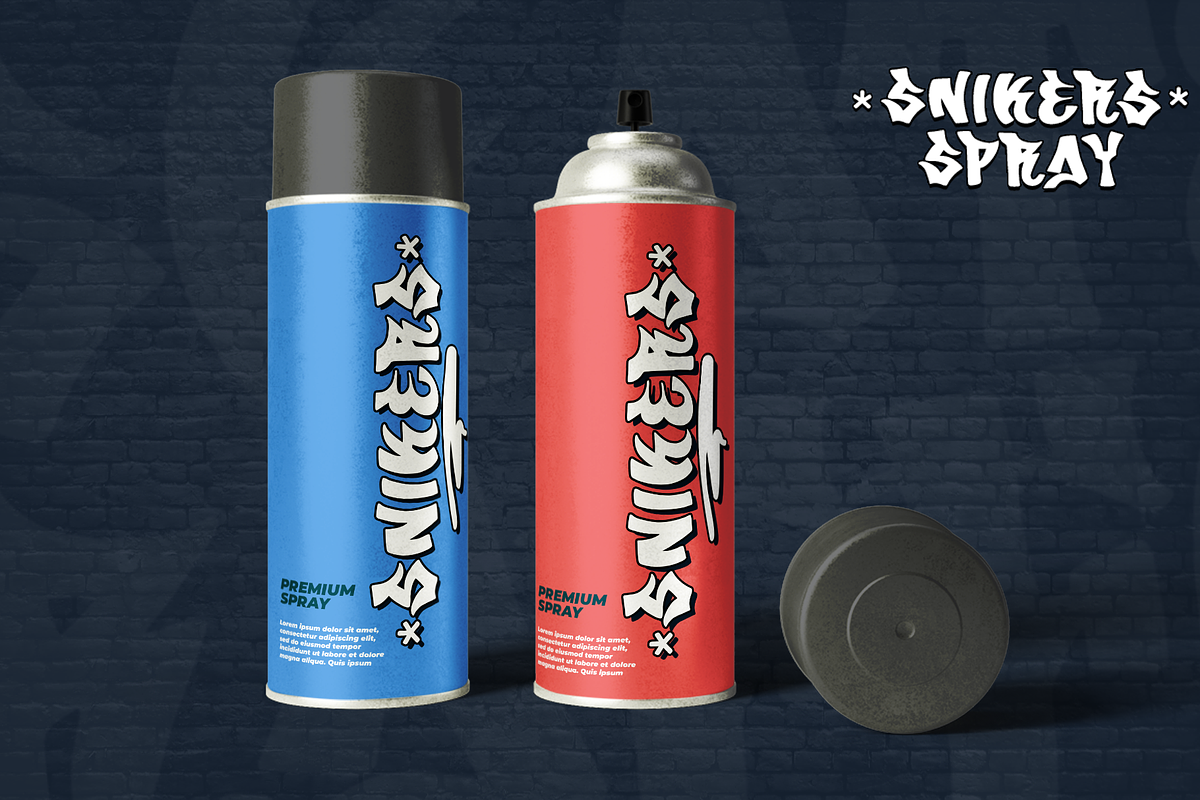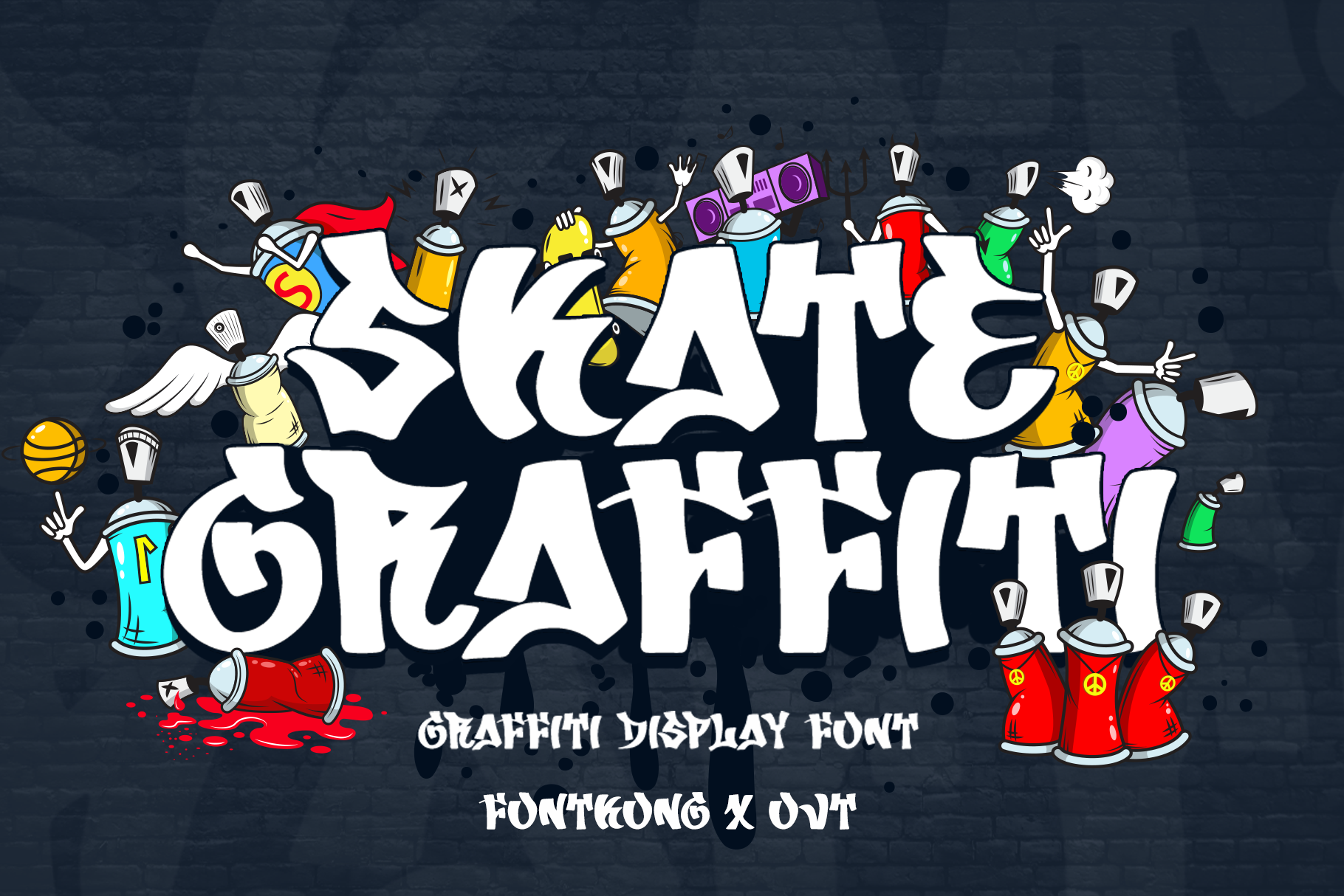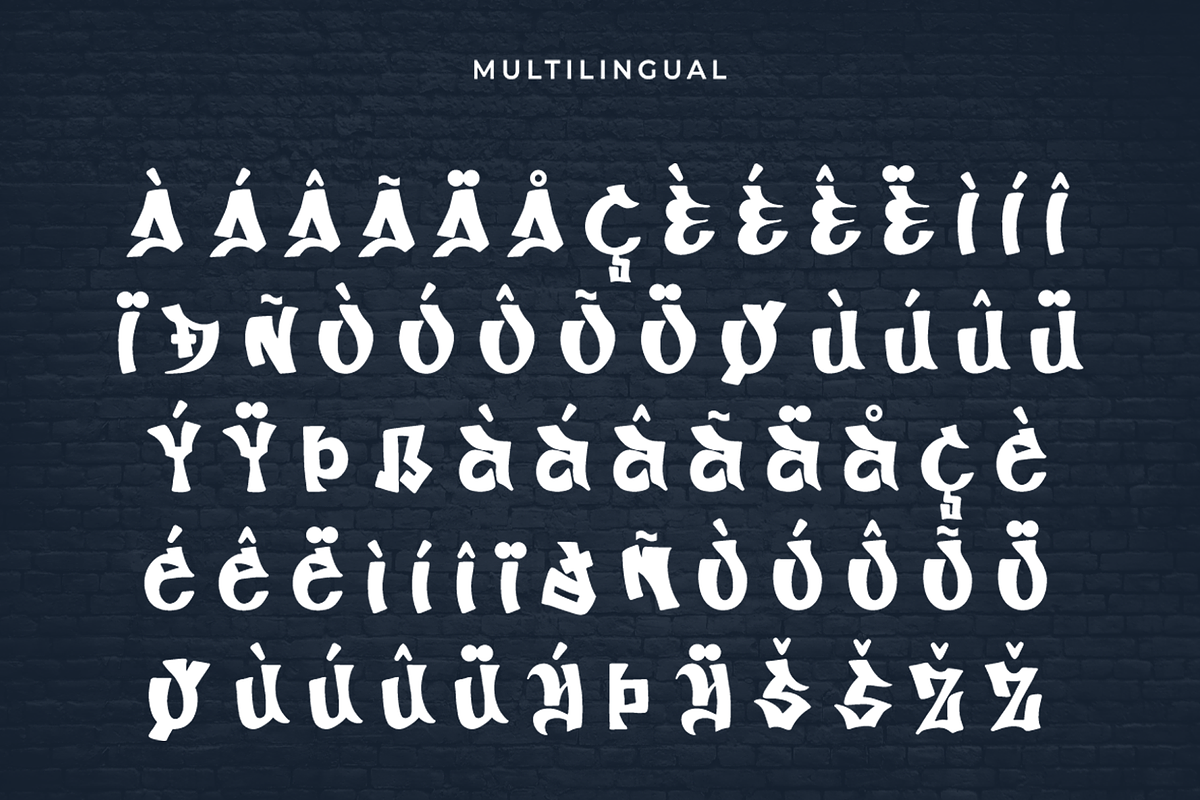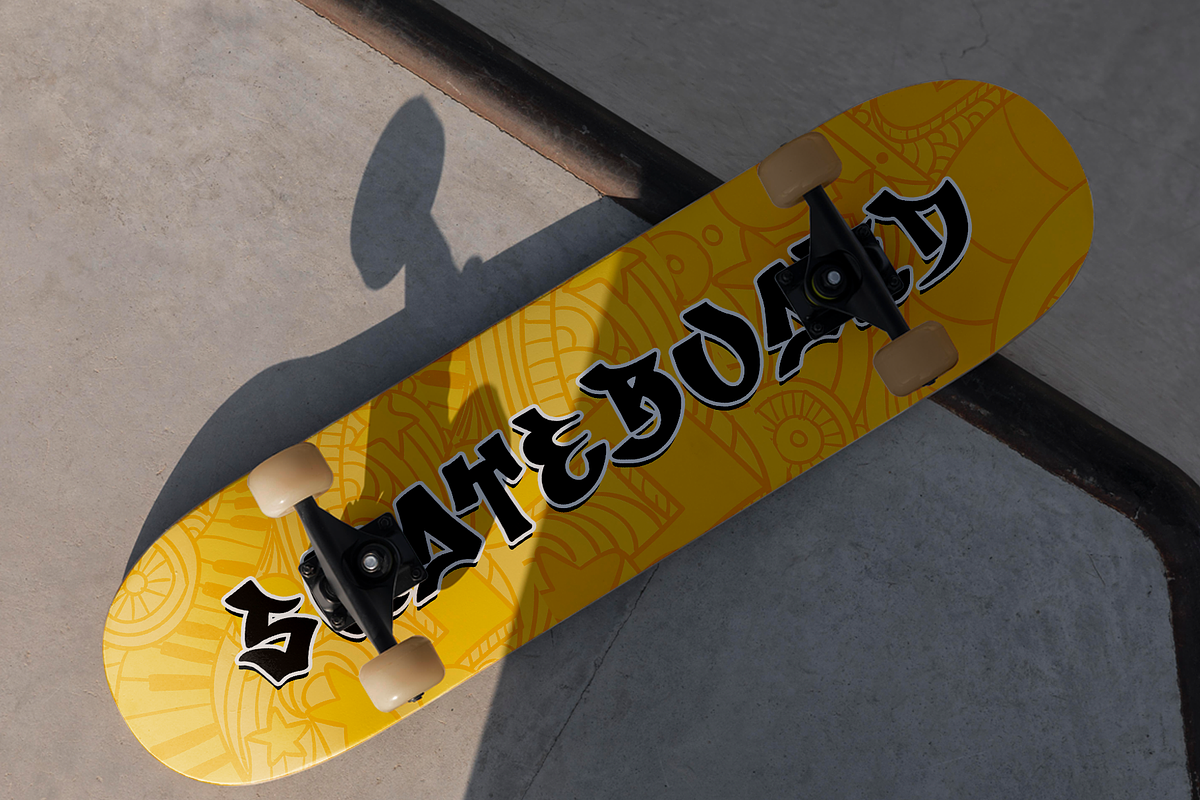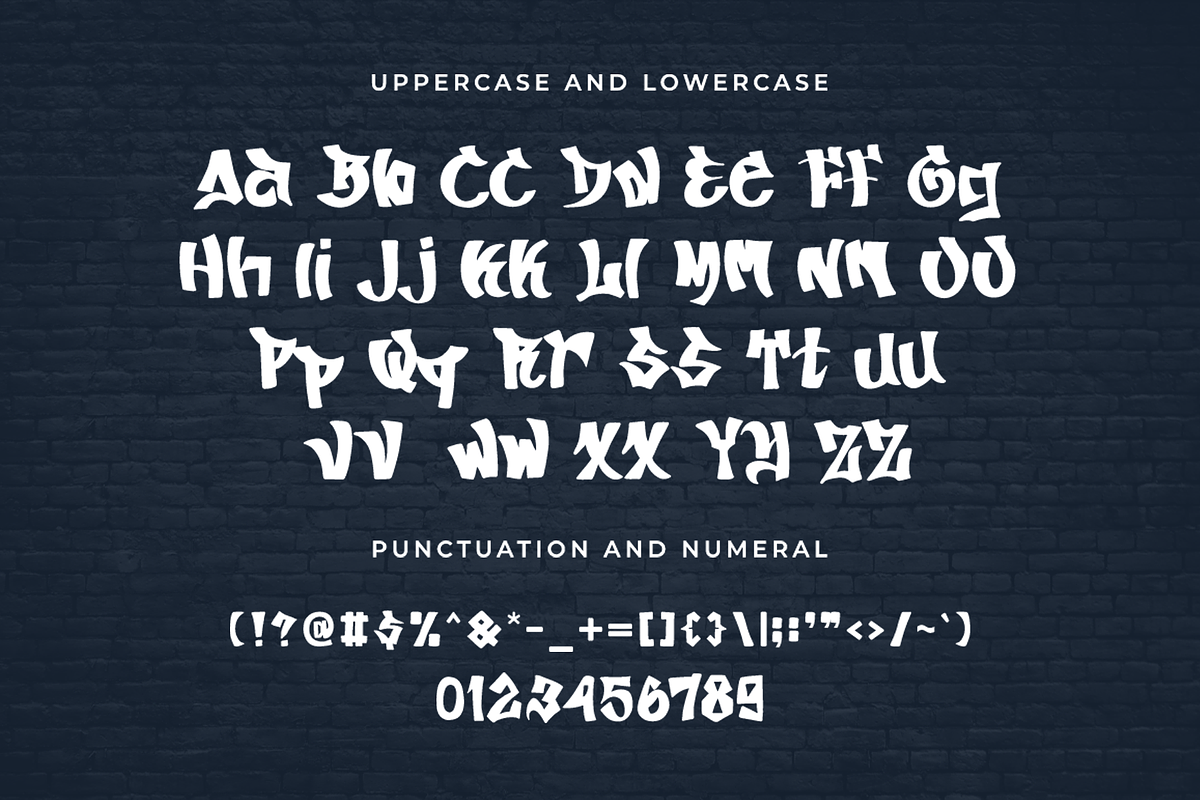
Skate Graffiti-Graffiti Display Font
Skate Graffiti - Graffiti Display Font
Introducing "Skate Graffiti," a dynamic graffiti display font that captures the raw, urban energy of street art. Perfect for designers looking to infuse their projects with a bold, edgy aesthetic, Skate Graffiti combines rugged textures and playful strokes, bringing a sense of movement and rebellion to your work.
Ideal for posters, apparel, branding, album covers, and urban-themed projects, this font provides an authentic graffiti look that stands out. Skate Graffiti includes a full set of uppercase and lowercase letters, numerals, punctuation, and special symbols, offering you the creative freedom to express your ideas with flair.
Elevate your design game with the vibrant, street-smart style of Skate Graffiti.